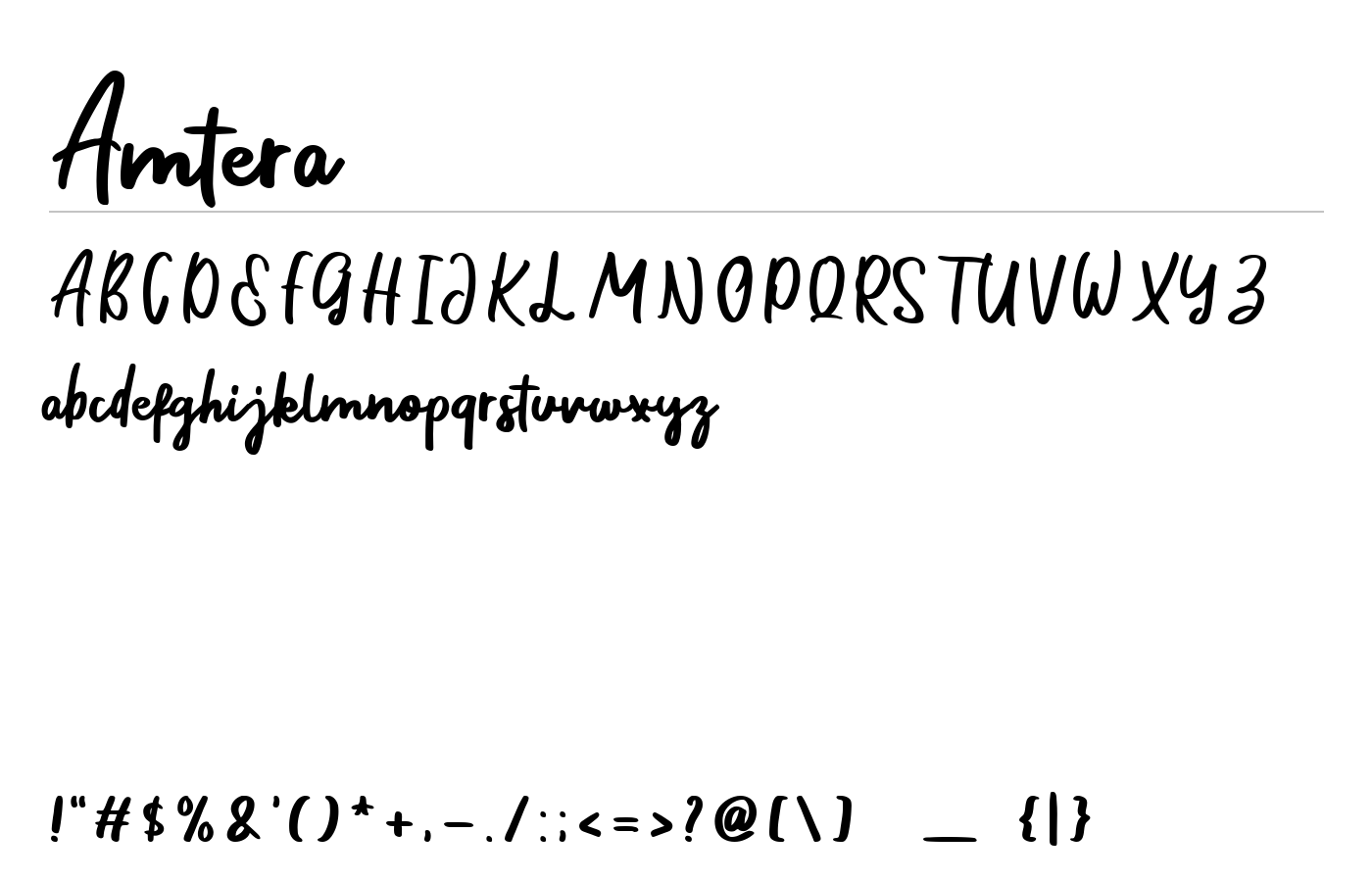
Amtera is a lively script font with a casual, hand-drawn feel that combines smooth, rounded strokes with a playful irregularity. Its moderate weight and airy spacing make it approachable and easy to read, perfect for adding a friendly and personal touch to branding, invitations, or creative headlines. This font works well for projects needing a warm, handcrafted vibe without sacrificing clarity.
Amtera Font
About Amtera Font